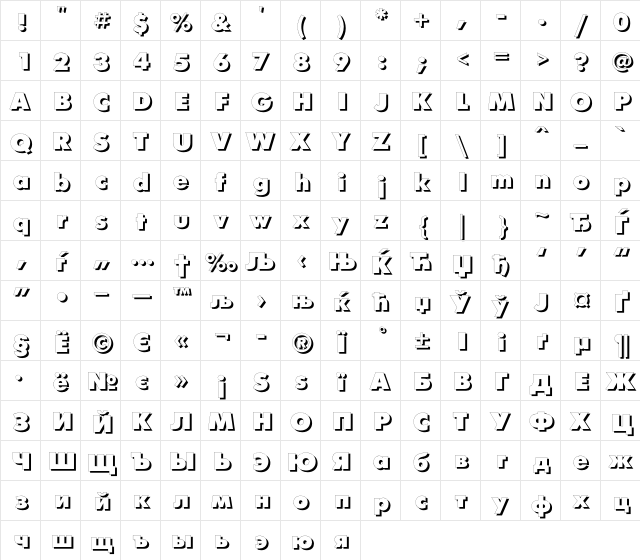
FuturaFuturisXShadowC Regular
Design Context for FuturaFuturisXShadowC Typeface
FuturaFuturisXShadowC channels digital-age aesthetics through its sharp, structured letterforms — ideal for brands that want to signal innovation.
Pro Tip: Try FuturaFuturisXShadowC with generous letter-spacing in UI labels and navigation — the geometric forms benefit from room to breathe.